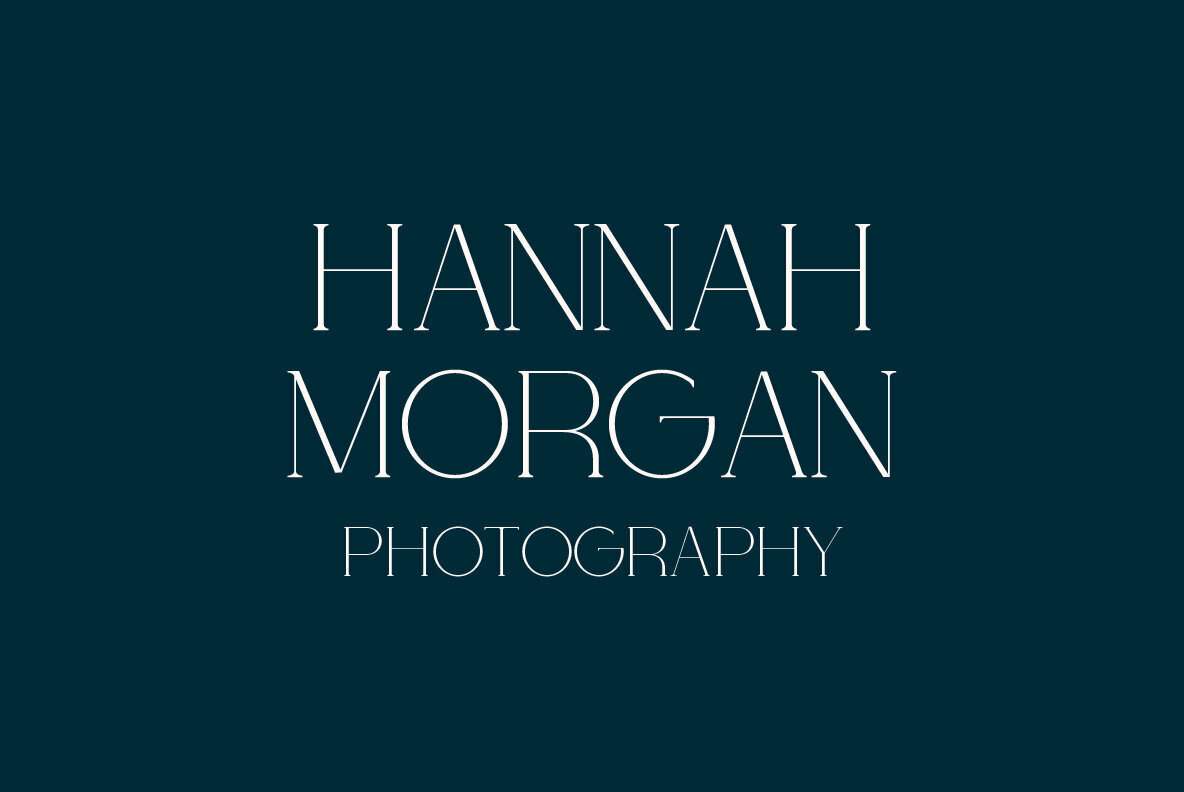
Duncan Walnut Font
Duncan Walnut embodies a contemporary elegance that is ideal for graphic designers seeking an updated serif style. This typeface offers a sleek aesthetic that melds seamlessly with various design projects, from branding to editorial layouts. With its modern appeal, Duncan Walnut provides a sophisticated touch that enhances readability and visual impact.Duncan Walnut: A Modern Serif Typeface